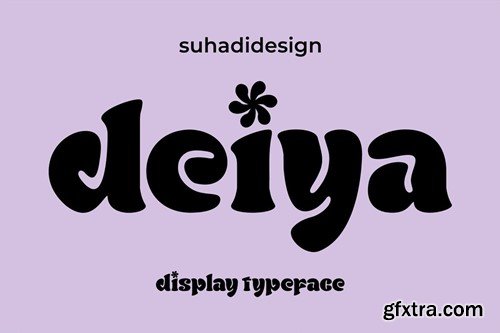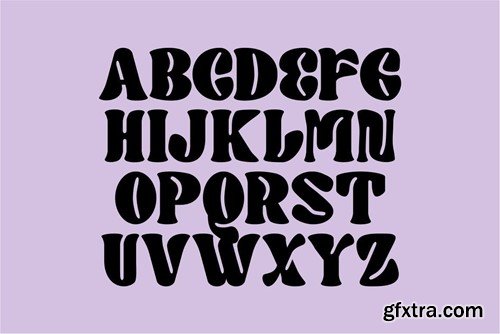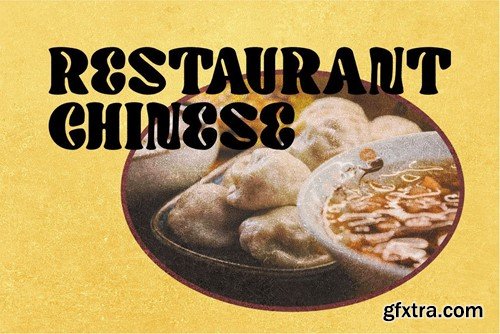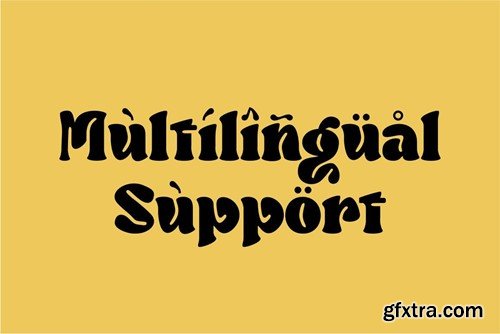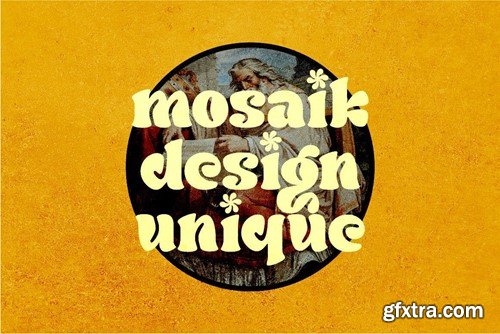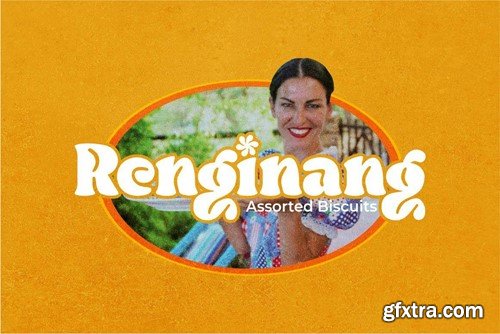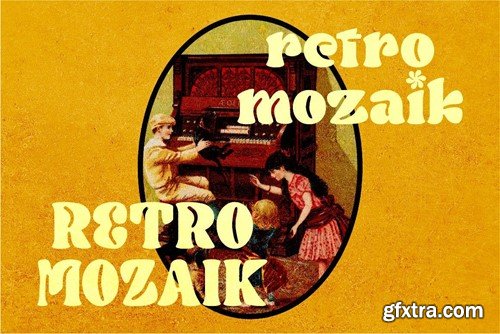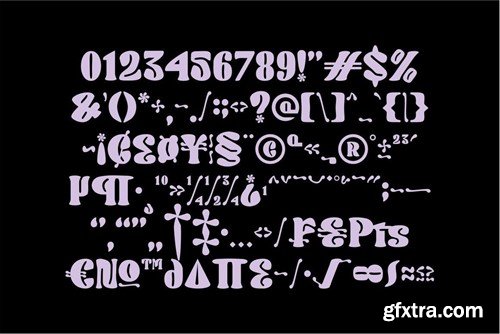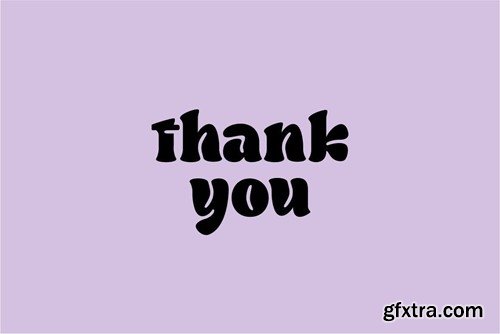
迪亚雅显示复古字体 44A3QPL
Deiya display retro typeface
Deiya display retro typeface Hi Ladies and Gentlemen! Market demand for unique display typeface fonts, I design display fonts that suit your views. Namely the Deiya font, is a unique display serif font. We made this font unique, easy to use. Deiya Font is a great choice for brands, brand names, branding, labels, and other projects. Stay tuned with us for more updates on font creation :) Font Features: • Uppercase • Lowercase • Multilingual support • Numbers and punctuation What's included: Deiya (Otf/Ttf)